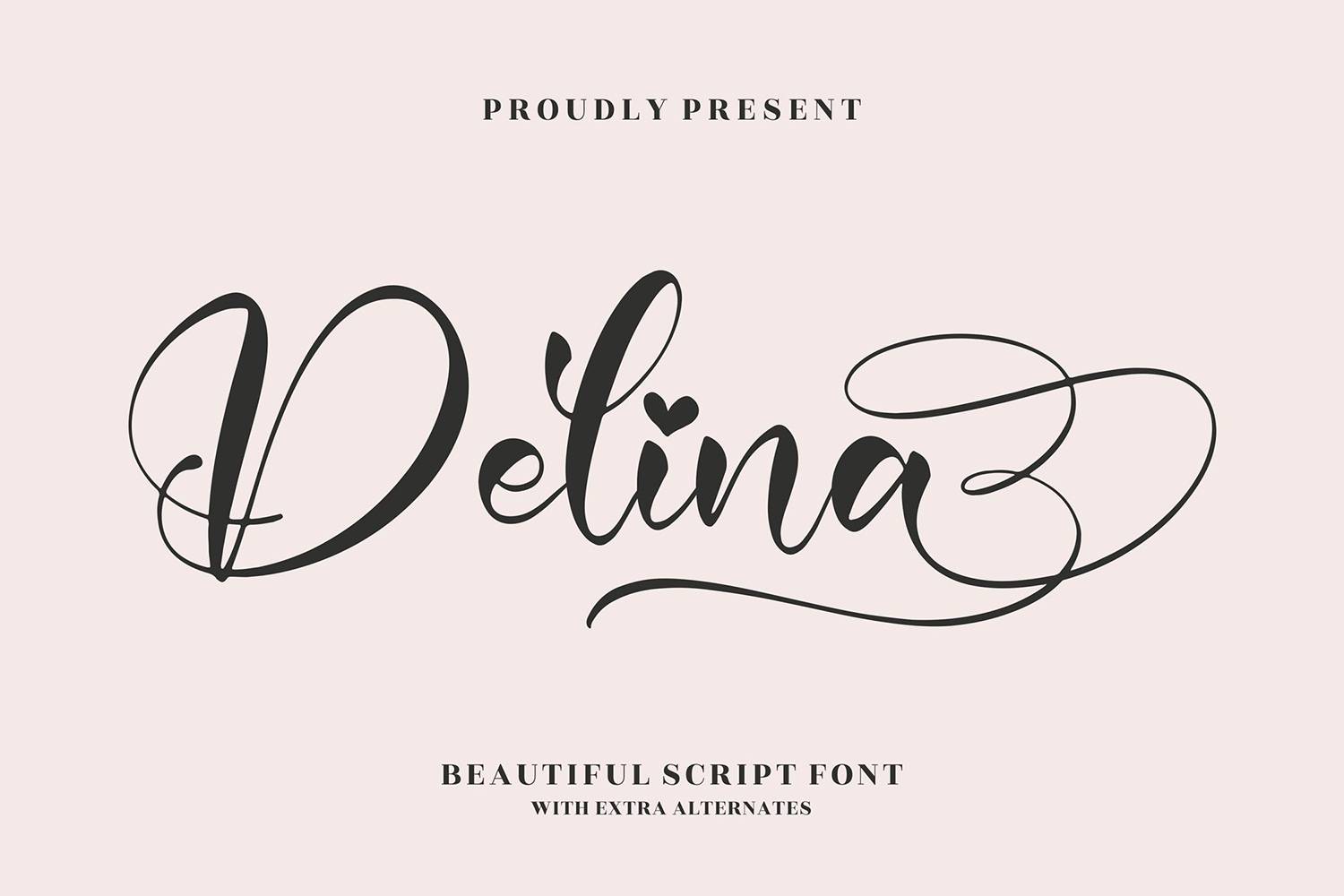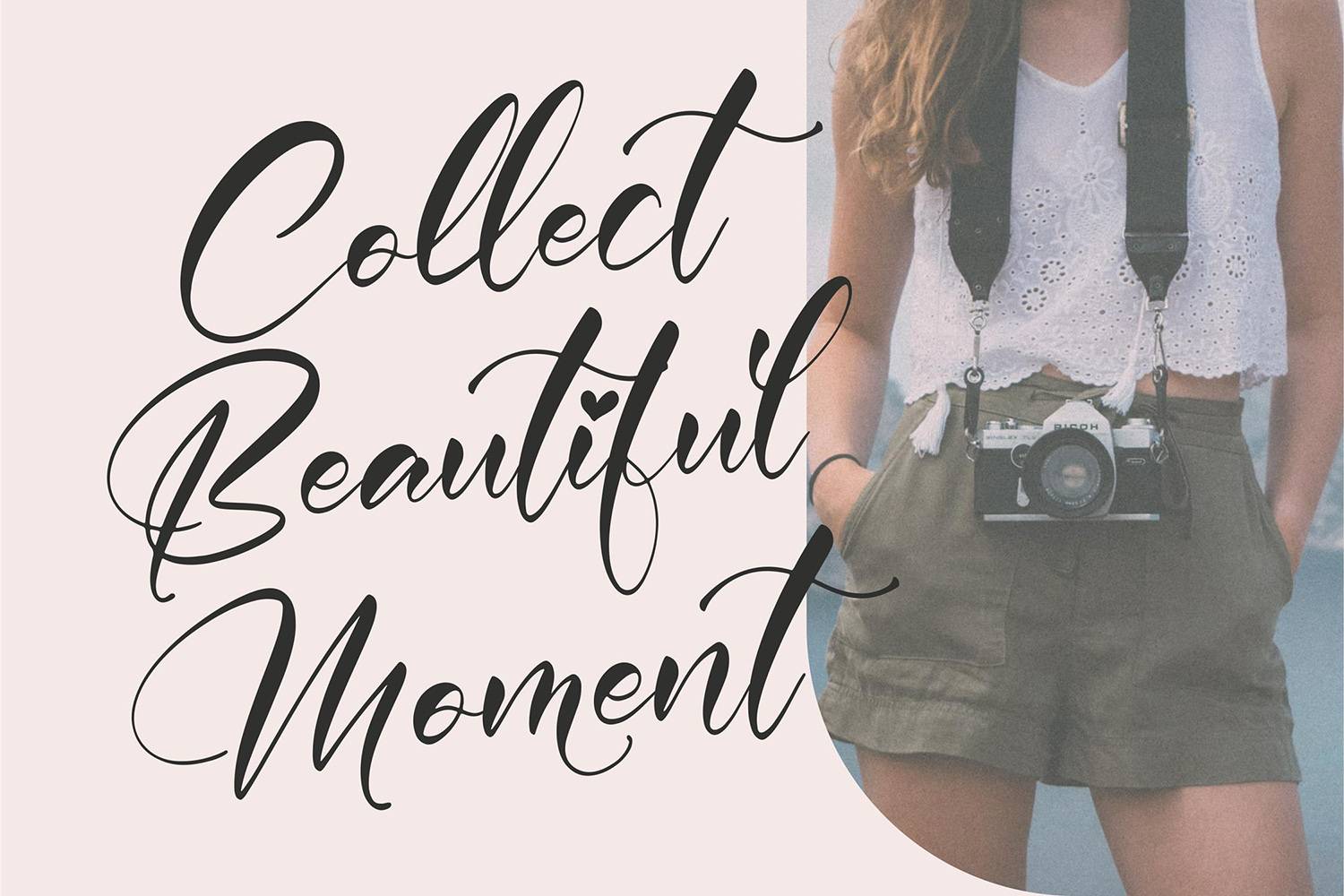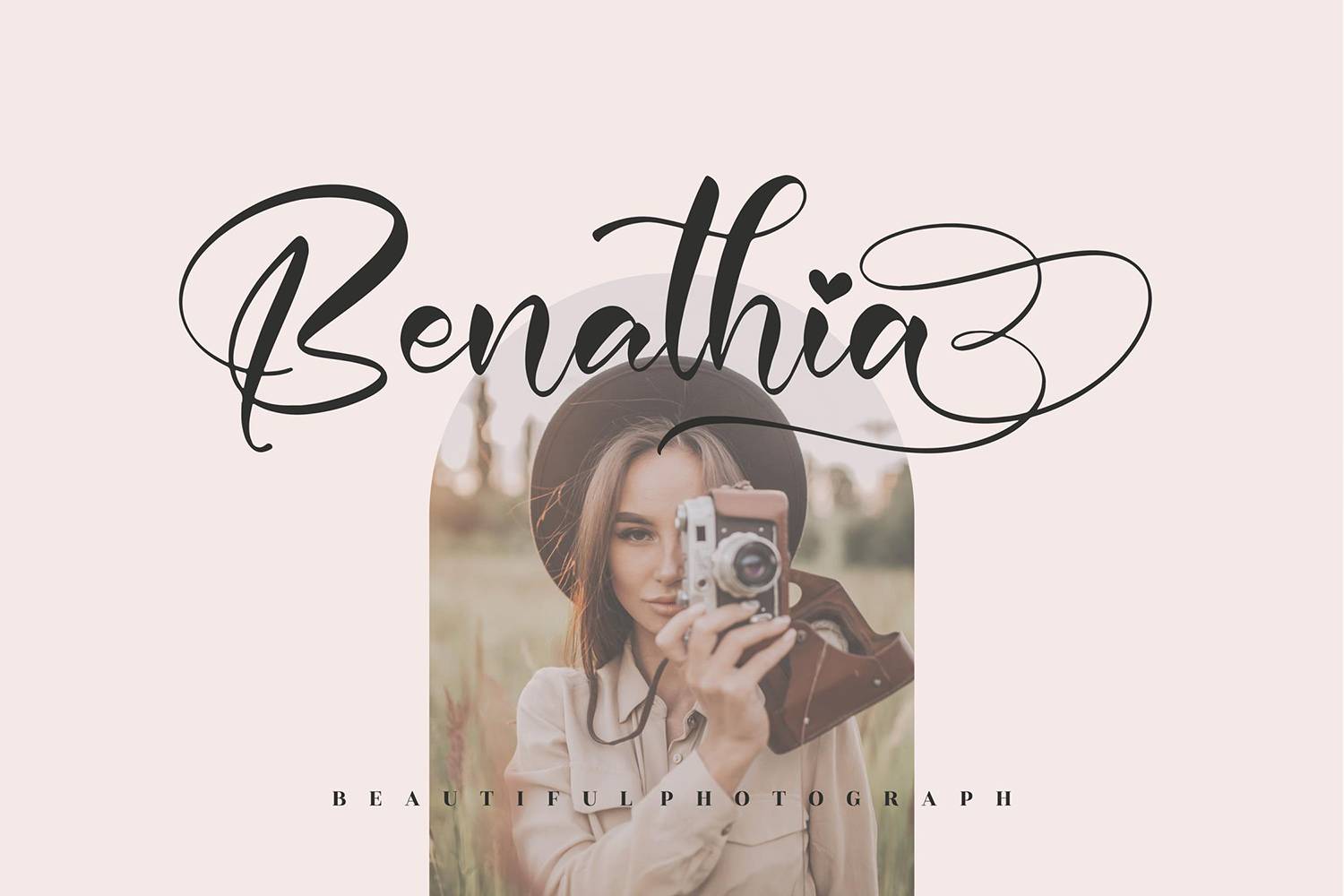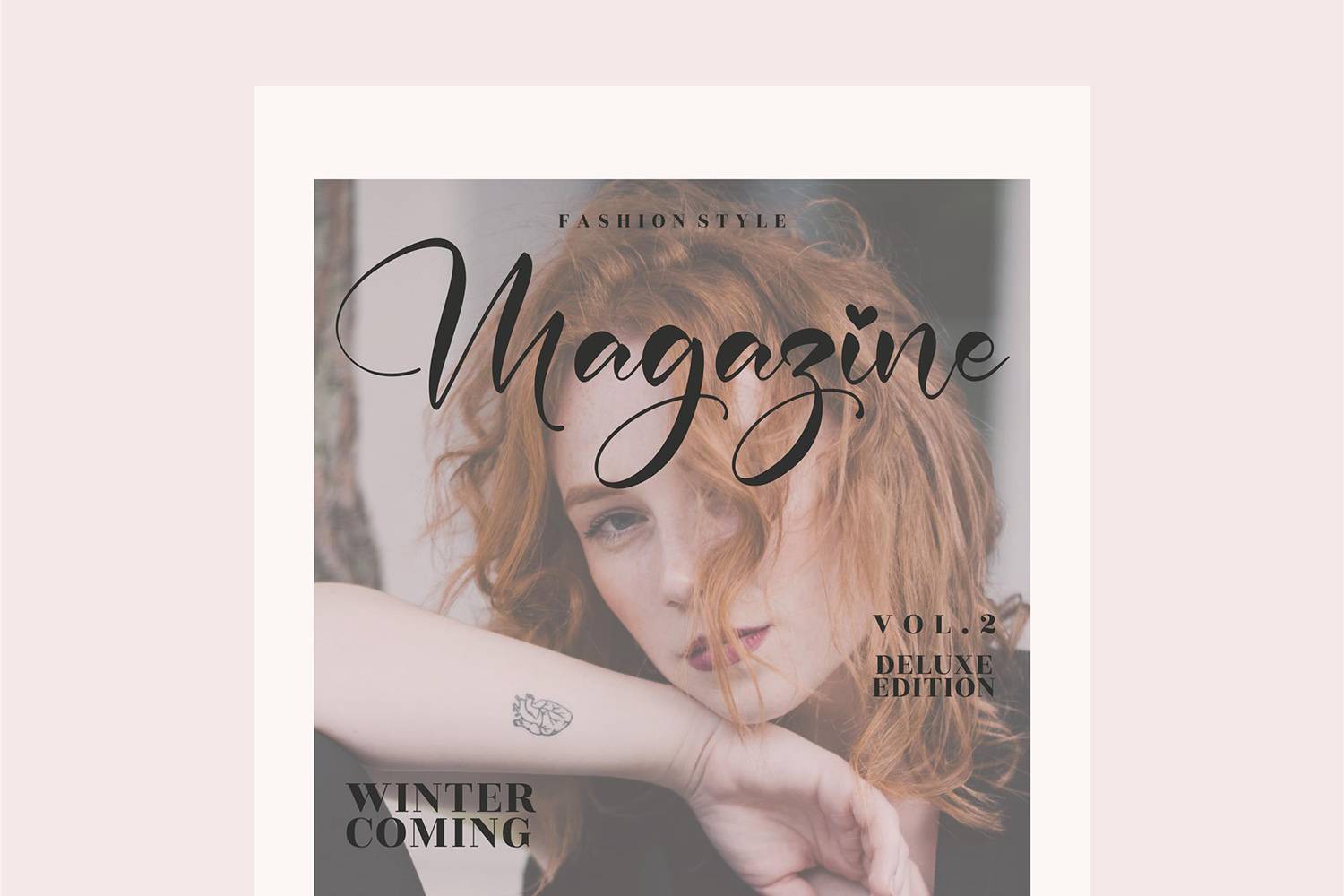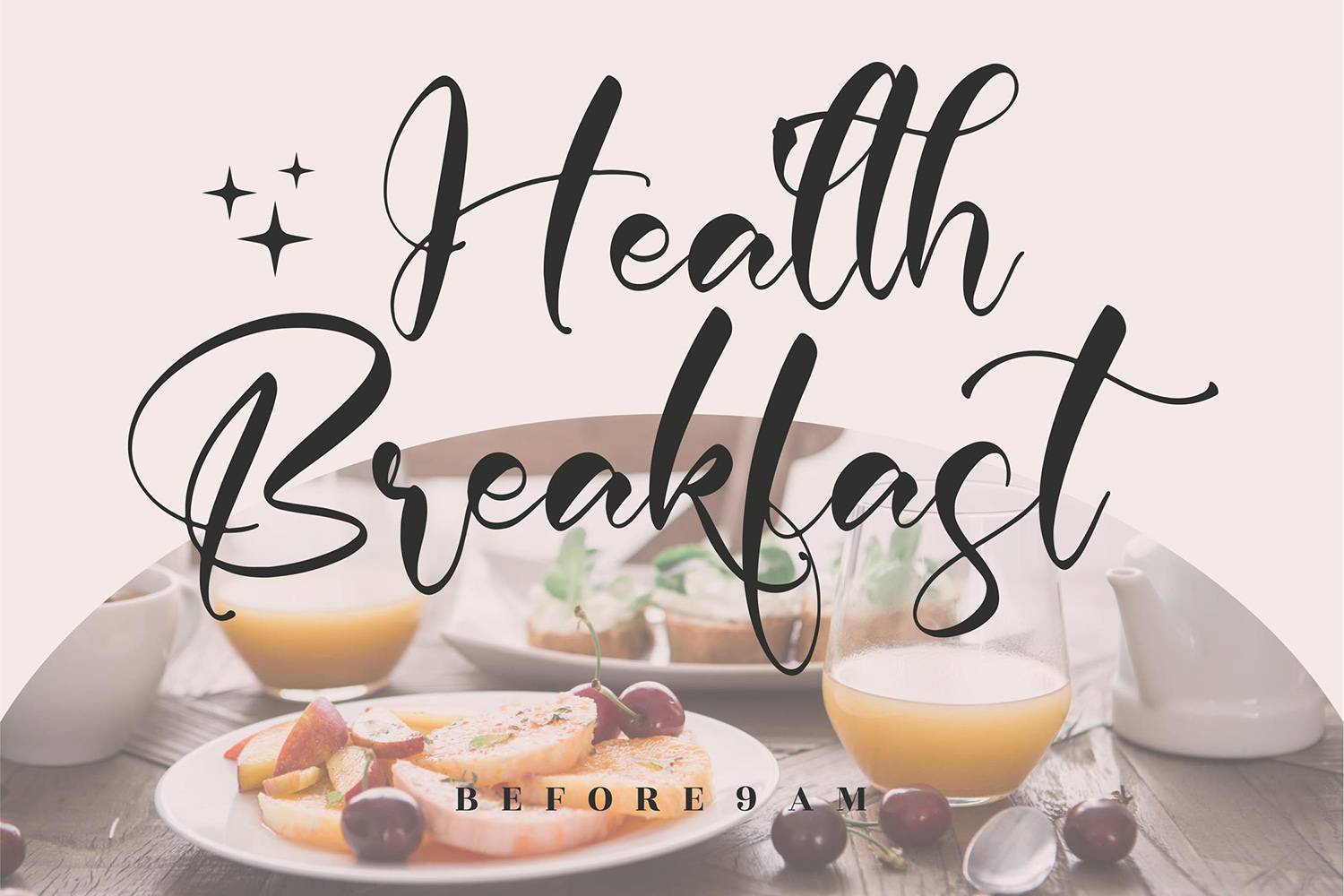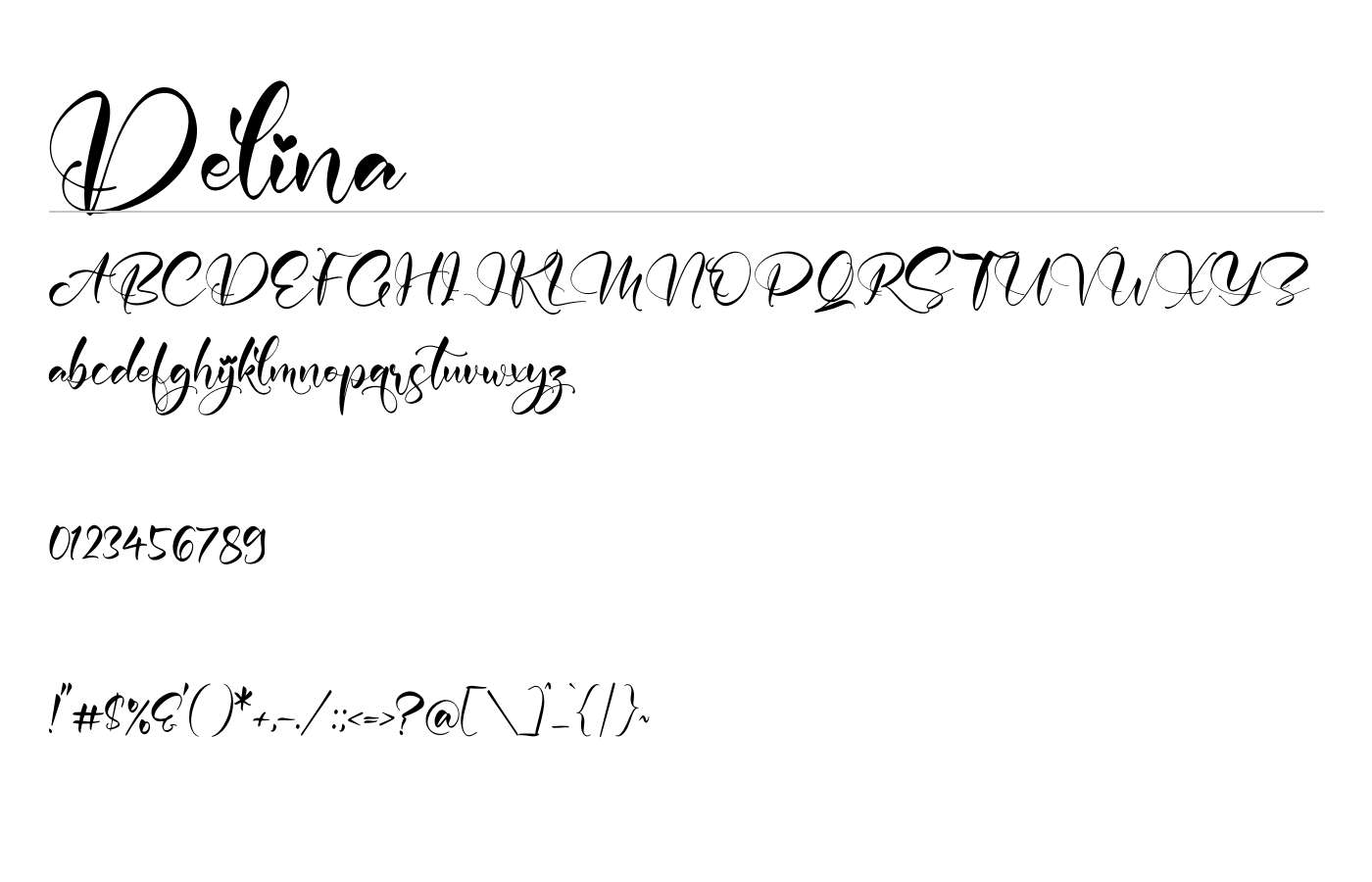
Delina is an elegant and stylish script font characterized by its flowing, calligraphic strokes and delicate contrasts between thick and thin lines. It exudes a romantic and sophisticated feel with distinctive feminine touches, like heart-shaped dots and graceful swashes, making it perfect for luxury branding, wedding invitations, and feminine editorial work. Its decorative and expressive nature works best in headlines or logos where a touch of elegance and charm is desired.
Delina Font